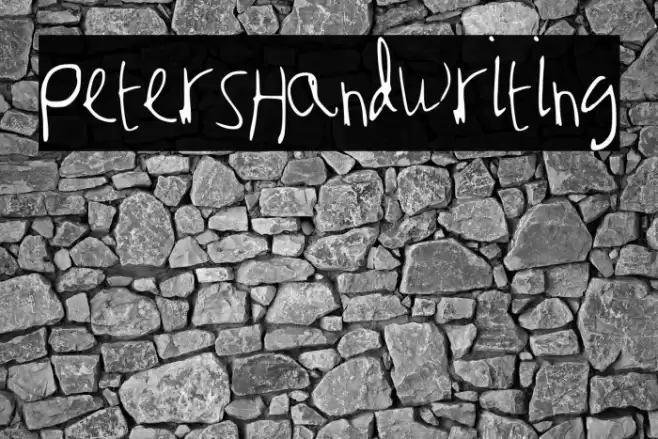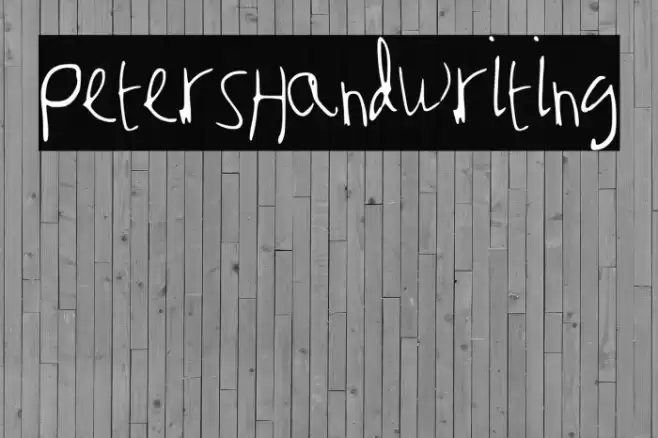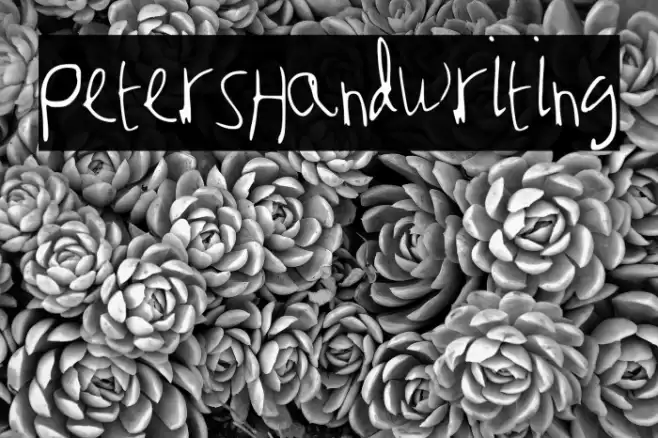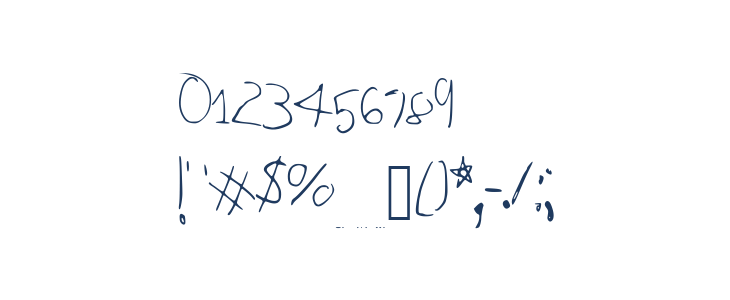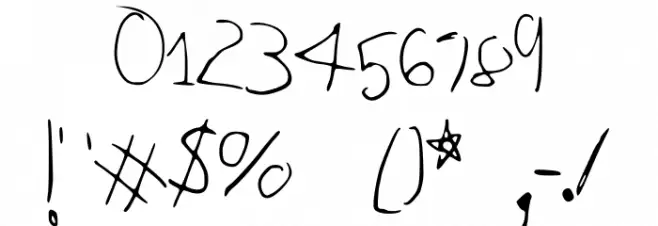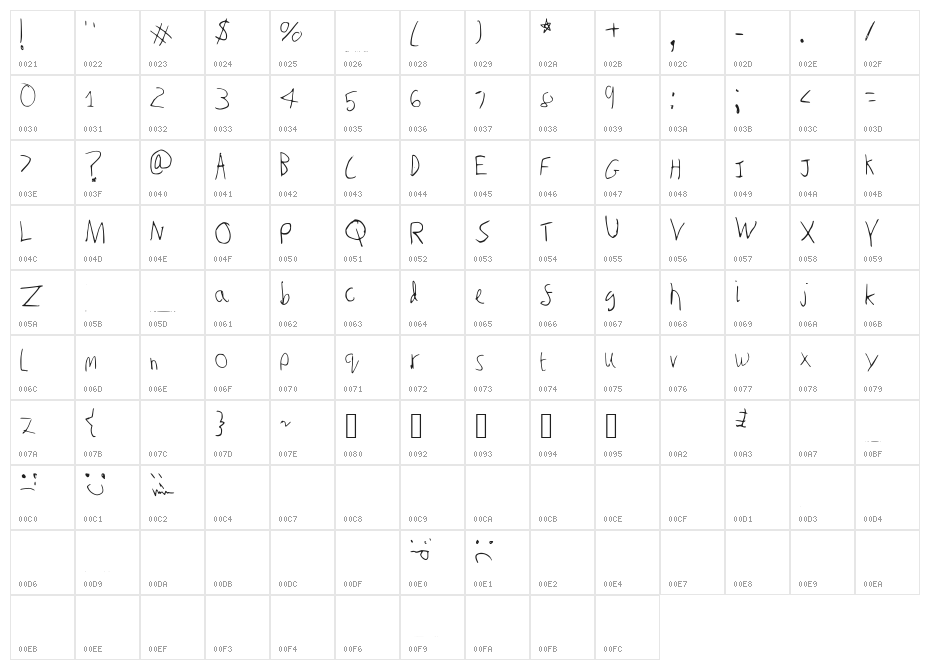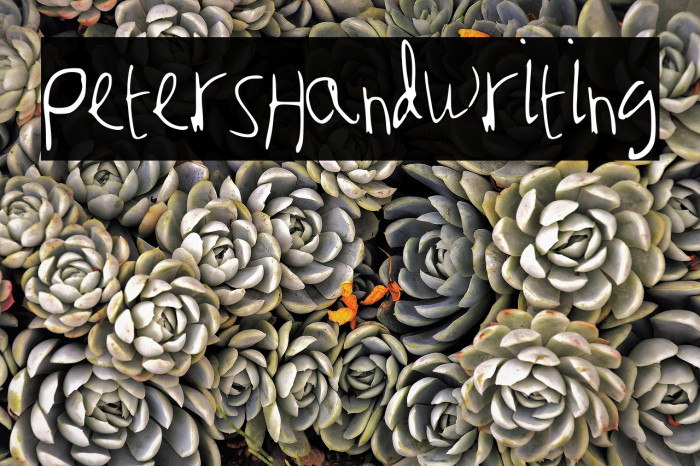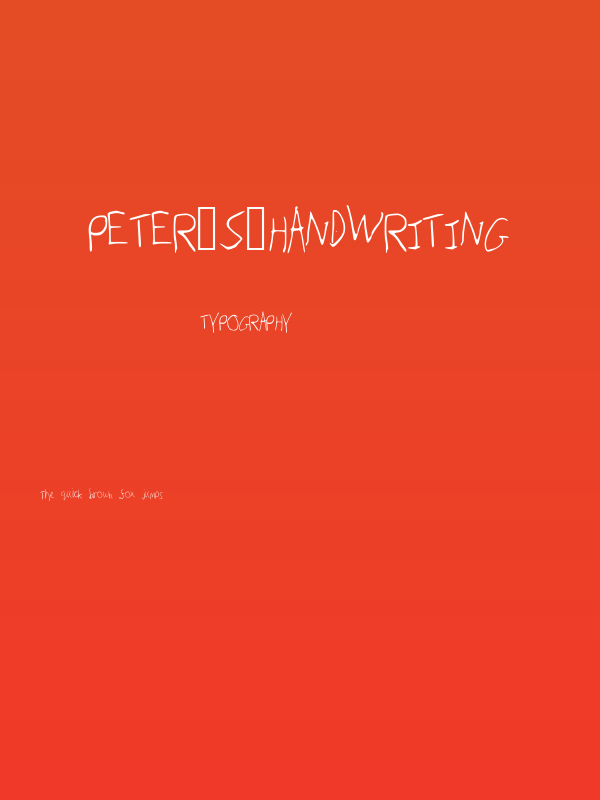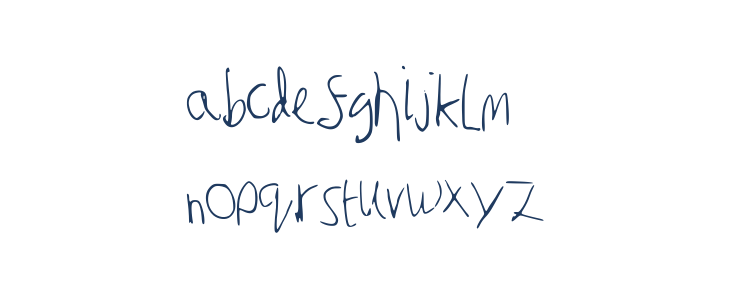
Peter_s_Handwriting Font
Peter_s_Handwriting Description
This font embodies a casual, handwritten style that mimics natural penmanship. The letters are slightly irregular, adding a personal and informal touch. The uppercase and lowercase letters are distinct, with a playful and spontaneous appearance. Numbers and special characters maintain the same handwritten aesthetic, contributing to the font's cohesive look. The strokes are uneven, enhancing the authentic handwriting feel, making it ideal for projects that require a personal or informal tone.
A casual, handwritten font with a playful and informal style from Uncategorized fonts.
- Proposed Projects: Ideal for personal notes, greeting cards, informal invitations, and creative projects that require a personal touch.
- Overall Style: Casual, Informal
- Use Case: Personal notes, Greeting cards, Informal invitations